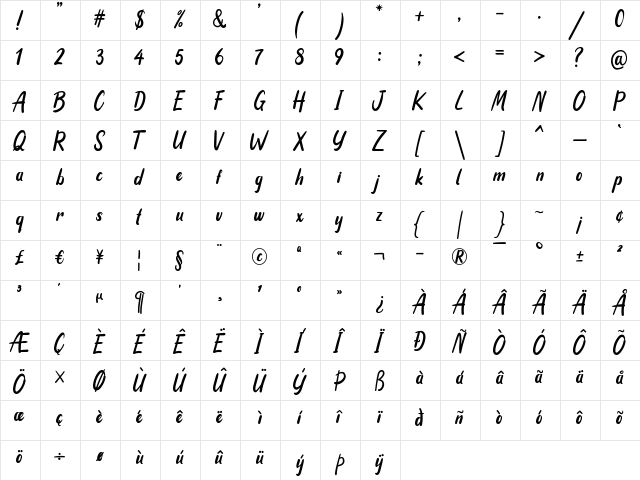
Andrographis Regular
Design Context for Andrographis Typeface
Andrographis is a composed and adaptable typeface that performs quietly and consistently across a wide range of design contexts.